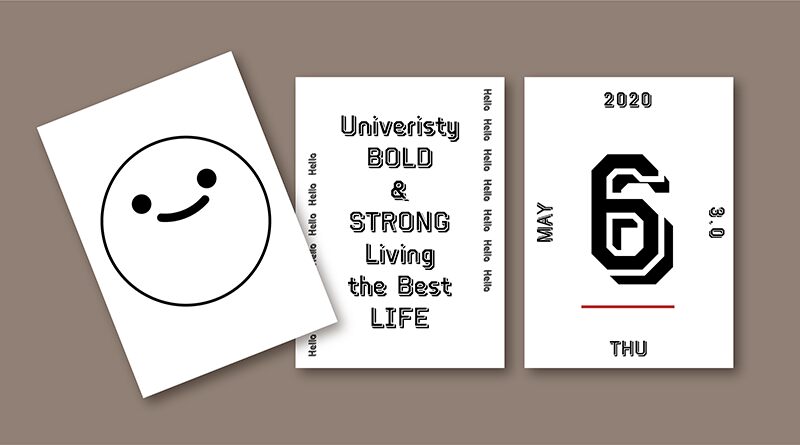
Meet HFUniversity, a distinctive display font crafted by the talented artisans at HyFont Studio.
With its old school charm and semi-light weight, this typeface captures the essence of academic elegance and vintage flair. Its carefully designed characters are perfect for those seeking to infuse their creative projects with a touch of nostalgia and sophistication.
Whether gracing the pages of a literary magazine, adorning event posters, or adding character to branding materials, HFUniversity stands out as an impeccable choice for designers aiming to make a memorable statement.
Embrace the allure of this typographic gem and let your work resonate with timeless appeal.